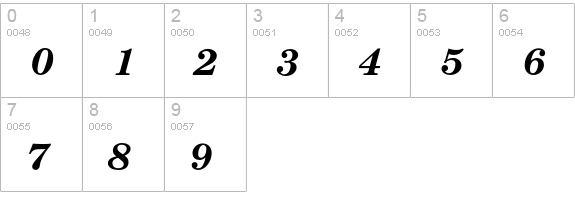
CenturySchoolbookEF-BolIta Font Details
CenturySchoolbookEF-BolIta font is a timeless and elegant typeface that exudes sophistication and professionalism. With its bold and italic style, this font is perfect for adding a touch of class to any design project. The distinctive serifs and clean lines make CenturySchoolbookEF-BolIta font ideal for both print and digital applications. What sets this font apart is that it is completely free to download at FontsMarket.com. This means that you can access this premium quality font without any cost, making it a valuable addition to your font collection. Whether you are working on a graphic design project, creating marketing materials, or designing a website, CenturySchoolbookEF-BolIta font will elevate your work with its refined aesthetic. Don't miss out on the opportunity to enhance your designs with the beauty and versatility of CenturySchoolbookEF-BolIta font, available for free download at FontsMarket.com.